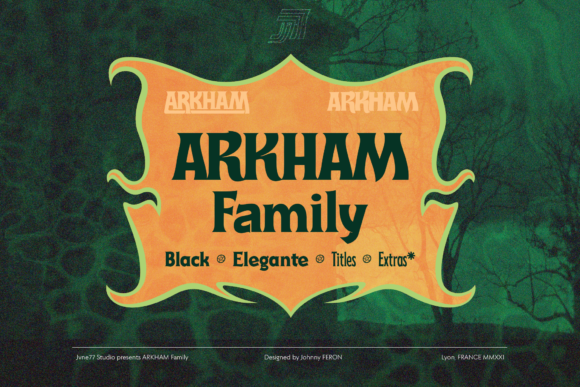
Journey into a world of captivating typography with the Arkham Font, a masterfully crafted display font that exudes boldness, thickness, and a touch of mystery. Unleash your creativity and let your imagination run wild as you discover the endless possibilities hidden within each letterform. This font is an artist's dream, a writer's muse, and a designer's secret weapon.
Dive into the depths of Arkham's alluring glyphs, meticulously designed to evoke a sense of intrigue and adventure. Each character carries a story, inviting readers to embark on a journey through uncharted territories. With its striking presence, Arkham demands attention, making it the perfect choice for headlines, posters, book covers, and any design that craves a dash of drama and intrigue.
Beyond its visual appeal, Arkham is a font of exceptional versatility. Its sturdy letterforms lend themselves effortlessly to a wide range of applications. Picture books, logos, branding, social media graphics, and website designs all come alive with Arkham's bold, commanding presence. Let your creativity soar as you explore the countless ways to incorporate this font into your visual storytelling.
The Arkham Font is a treasure trove of typographic wonders, featuring a comprehensive collection of swashes and alternate characters. Unleash your inner artist and let your designs flourish with a symphony of unique and captivating letterforms. Experiment with different combinations, create stunning ligatures, and let your imagination take center stage. The possibilities are boundless, and the results are guaranteed to leave a lasting impression.
Make a statement with Arkham, a font that commands attention and captivates hearts. Its distinctive style and undeniable charisma will elevate your designs to new heights, leaving your audience spellbound. Embrace the power of Arkham and let your creativity shine brighter than ever before.